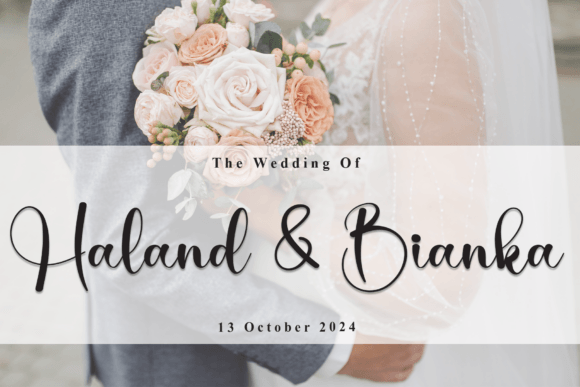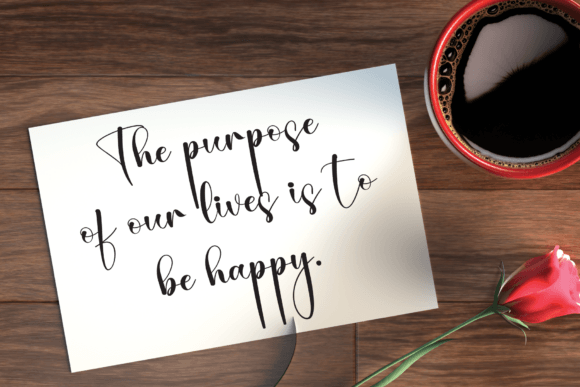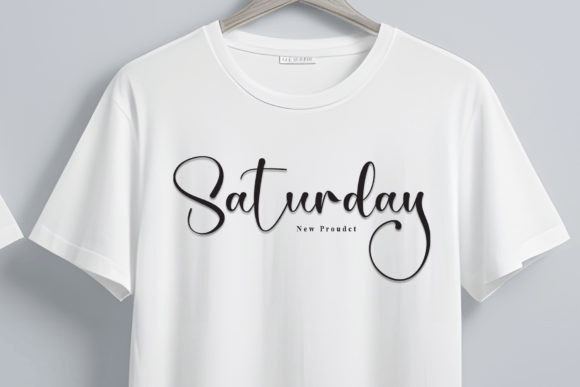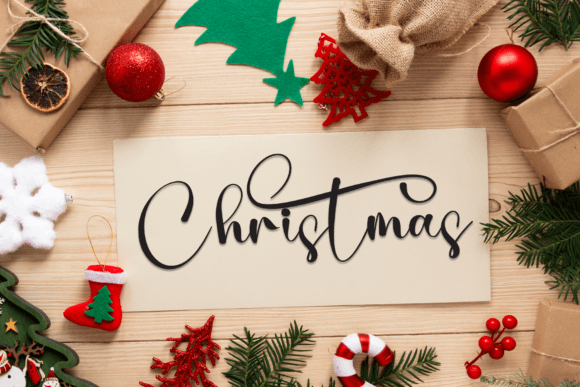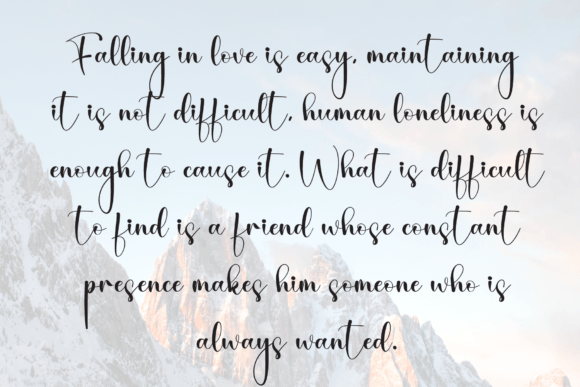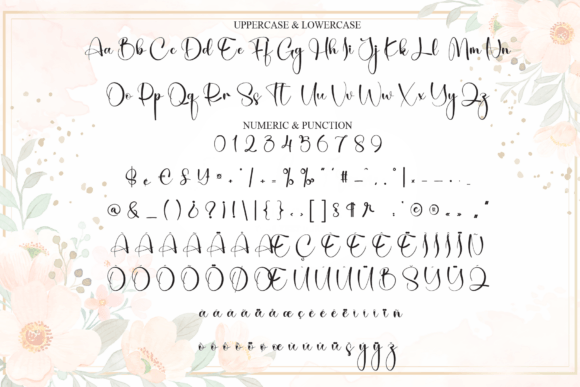
The Perfect Personal Touch: A Deep Dive into Greetings Font
I’ll never forget the time I was working on a handmade wedding invitation project, and I just couldn’t find the right font to give it that personal touch. My client wanted something unique, something that would make their special day stand out. That’s when I stumbled upon Greetings Font, a beautiful handwritten font that combines bold and thin lines, giving it a unique and stylish look. In this article, I’ll share my experience with Greetings Font, its features, and how to make the most of it in your designs.
An Honest Review of Greetings Font
So, what do I love about Greetings Font? Here are a few things:
- ✨ Unique and stylish look: The combination of bold and thin lines gives Greetings Font a distinctive personality that’s hard to find in other fonts.
- ✅ Easy to read: Despite its unique look, Greetings Font is surprisingly easy to read, making it perfect for body text and headings.
- 💕 Versatile: Greetings Font is suitable for a wide range of design projects, from wedding invitations to branding and packaging.
Of course, no font is perfect, and Greetings Font has a few small quirks:
- 🤔 Limited character set: Greetings Font has a limited character set, which means it may not be suitable for projects that require a wide range of special characters.
- ⚠️ Not suitable for body text: While Greetings Font is easy to read, it’s not the best choice for long blocks of body text. It’s better suited for headings and titles.
The Story Behind Greetings Font
Greetings Font was designed by a team of creatives who wanted to create a unique and stylish font that would add a personal touch to designs. The font is inspired by traditional handwriting and combines bold and thin lines to create a distinctive look. The designers aimed to create a font that would be easy to read and versatile enough to use in a wide range of design projects.
| Font Name | Greatings Font |
| Author | Creativewhitee |
| What is Greetings Font? | Greetings Font is a handwritten font that combines bold and thin lines, giving it a unique and stylish look. |